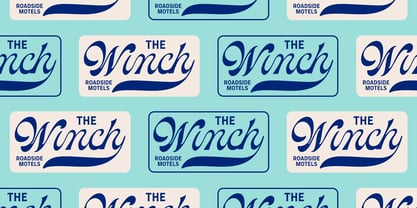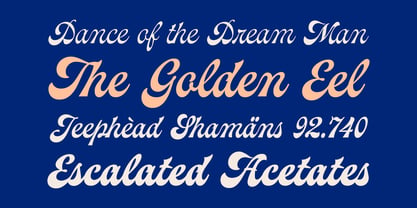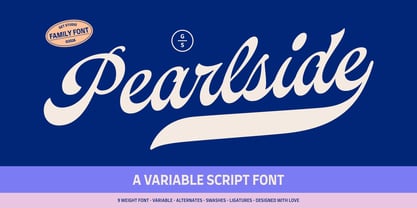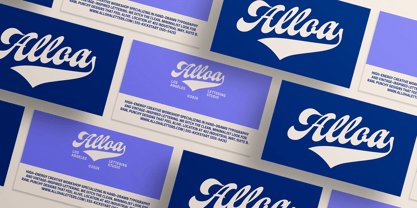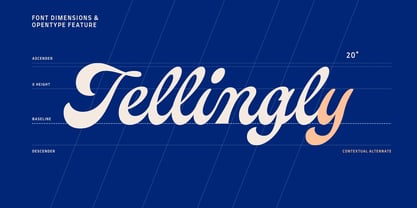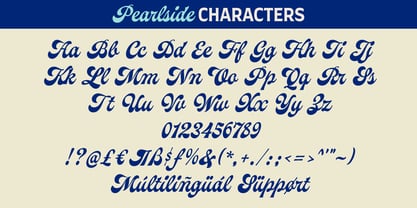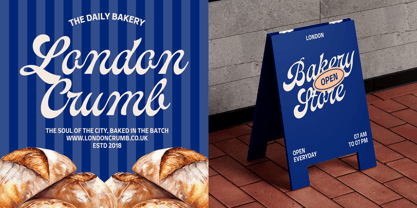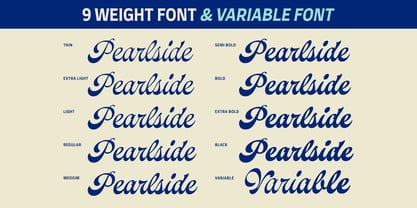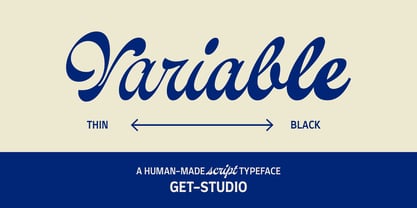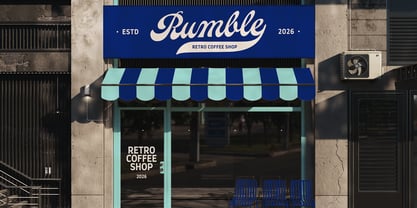
Pearlside
by Get Studio
The Pearlside Font Family was designed by Hermansyah and published by Get Studio. Pearlside contains 10 styles and family package options. More about this family
Pearlside is a confident script inspired by classic lettering traditions and vintage visual culture. The letterforms feel genuinely hand-crafted, with smooth curves, a steady forward slant, and flowing connections that remain clear and readable. Each character is carefully proportioned, creating a consistent rhythm throughout the text, while swashes and terminals add character without overwhelming the word. Built as a variable script with 9 styles, ranging from Thin to Black, Pearlside offers practical flexibility within a single family. The lighter weights appear clean and refined, while the heavier styles bring a strong visual presence for logos, headlines, and display use. Contextual alternates and swashes activate naturally within words, allowing the font to adapt smoothly to different layouts while maintaining an expressive yet controlled personality.